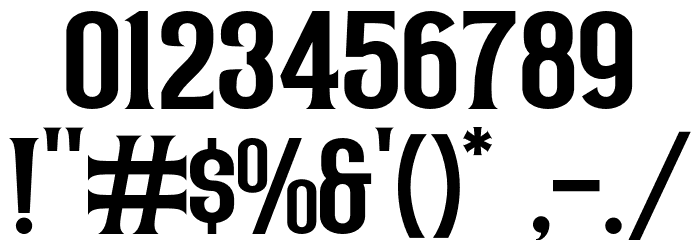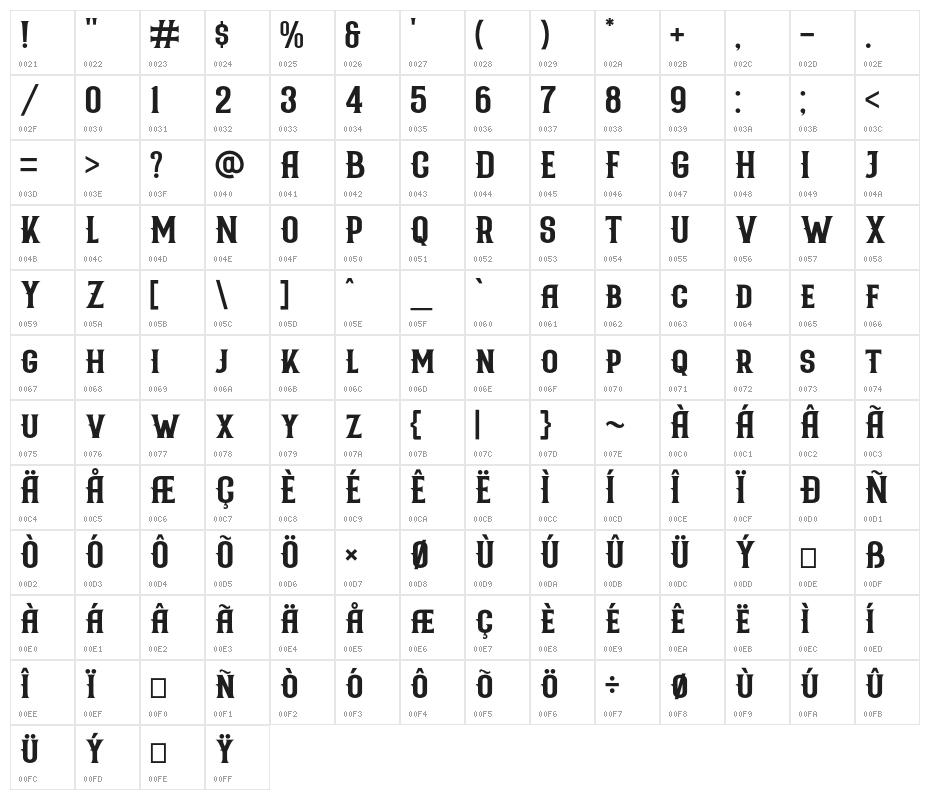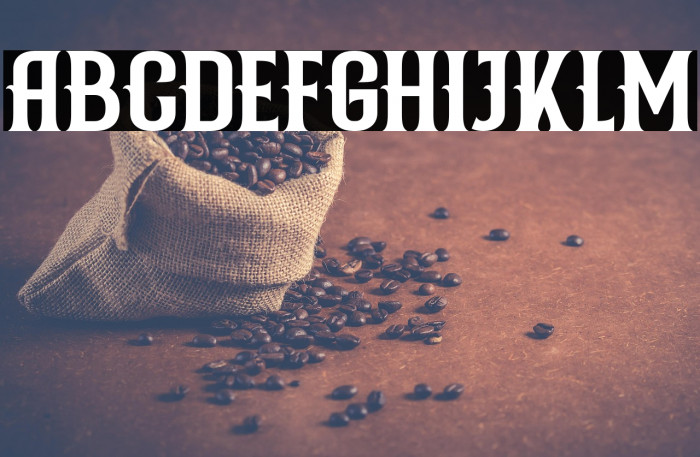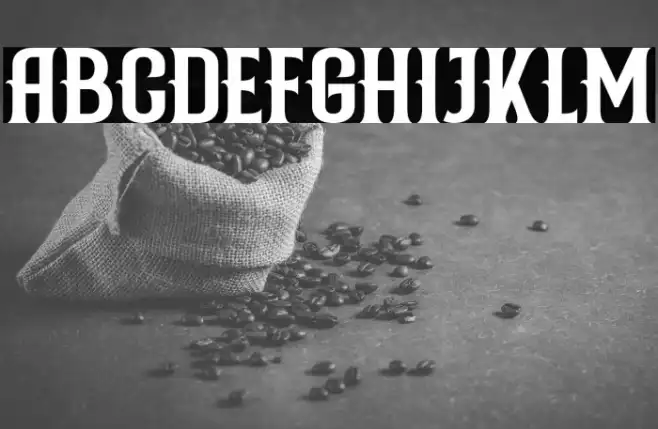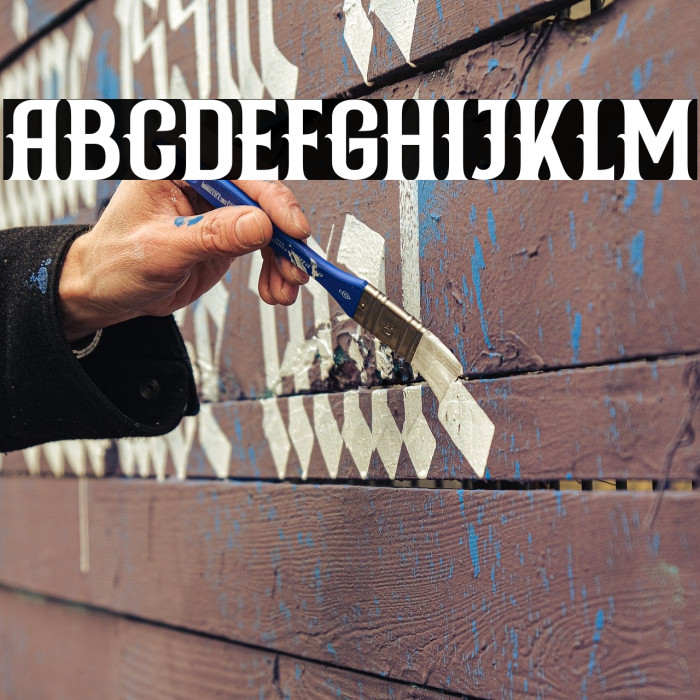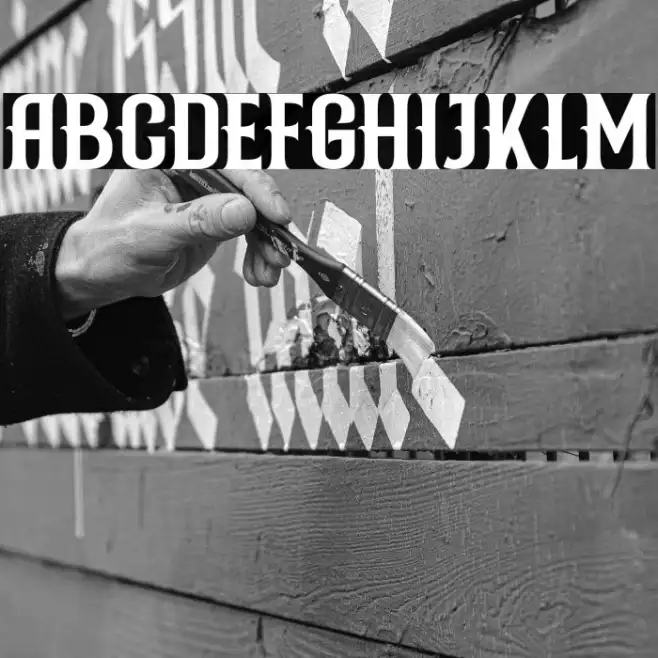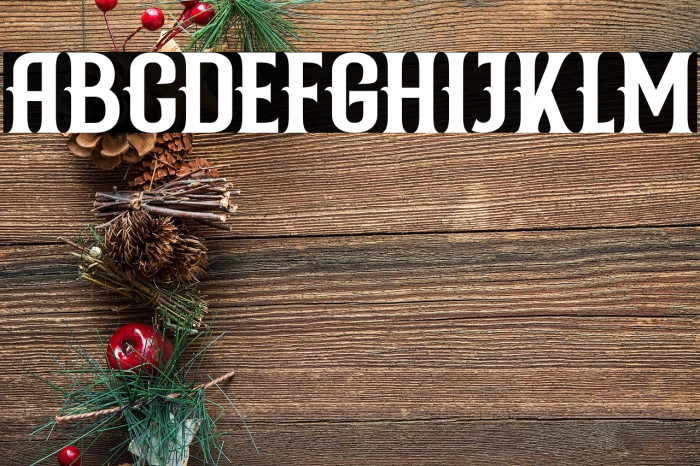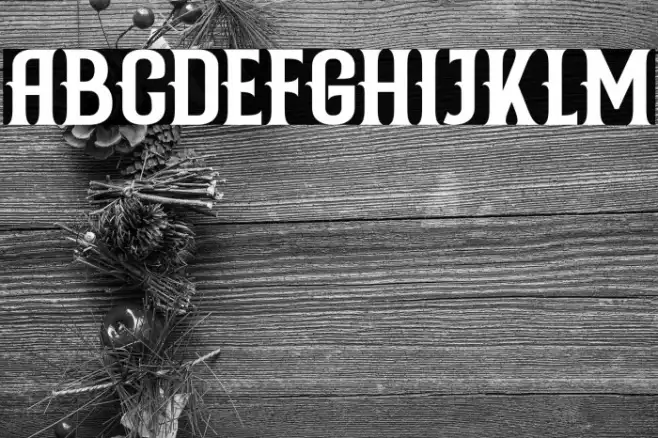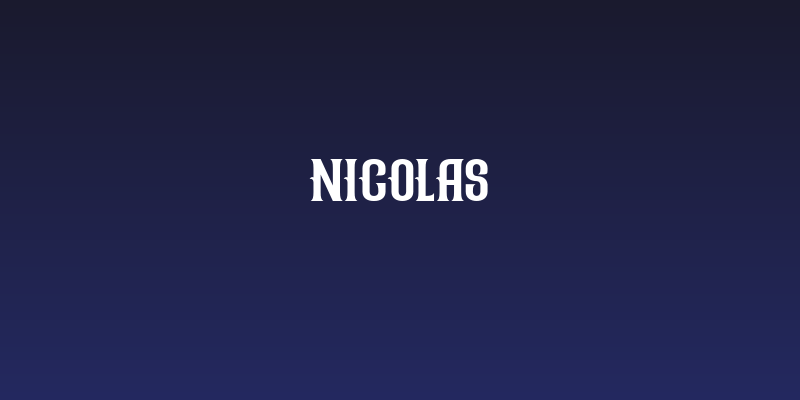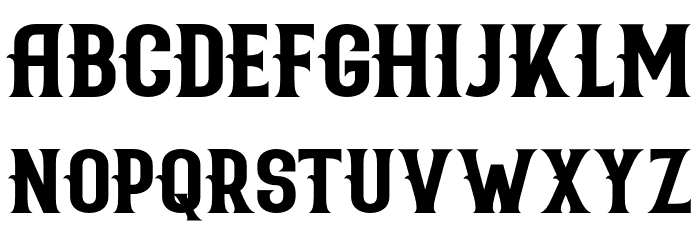
Nicolas Font
Nicolas Description
This font features a bold and striking design with a strong presence. The characters are characterized by thick strokes and a high contrast between thick and thin lines, giving it a dramatic and impactful appearance. The serifs are prominent and add a touch of elegance to the overall style. The uppercase letters are particularly eye-catching, with a unique flair in their design that makes them stand out. The numbers and special characters maintain the same boldness, ensuring consistency throughout the typeface. This font is ideal for projects that require a strong visual impact and a touch of sophistication.